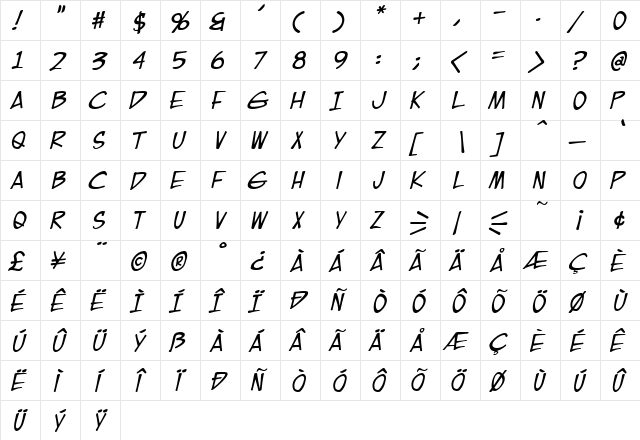
EuroComic Italic Font Preview
EuroComic Italic
EuroComic Italic Font Details
Design Context for EuroComic Typeface
EuroComic trades formality for fun, with bouncy, characterful letterforms that bring warmth and energy to any project. The dynamic lean of this cut emphasises speed and emphasis in any layout.
Great for children's books, toy packaging, family event branding, and casual consumer-facing design.
Font Pairing: Pairs well with a rounded or humanist sans for body copy, maintaining the friendly tone without relying on EuroComic to carry extended reading.
Pro Tip: Avoid using EuroComic for long passages of text — it works best for headlines, labels, and short calls to action.